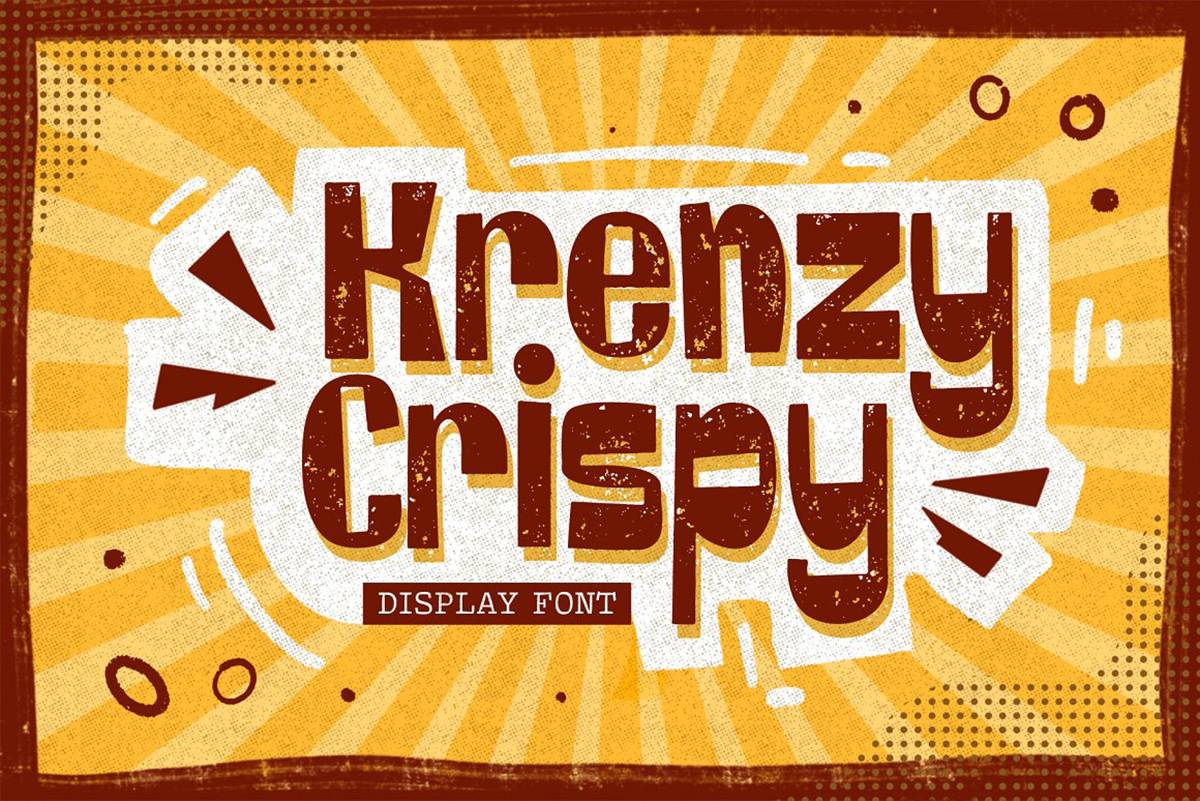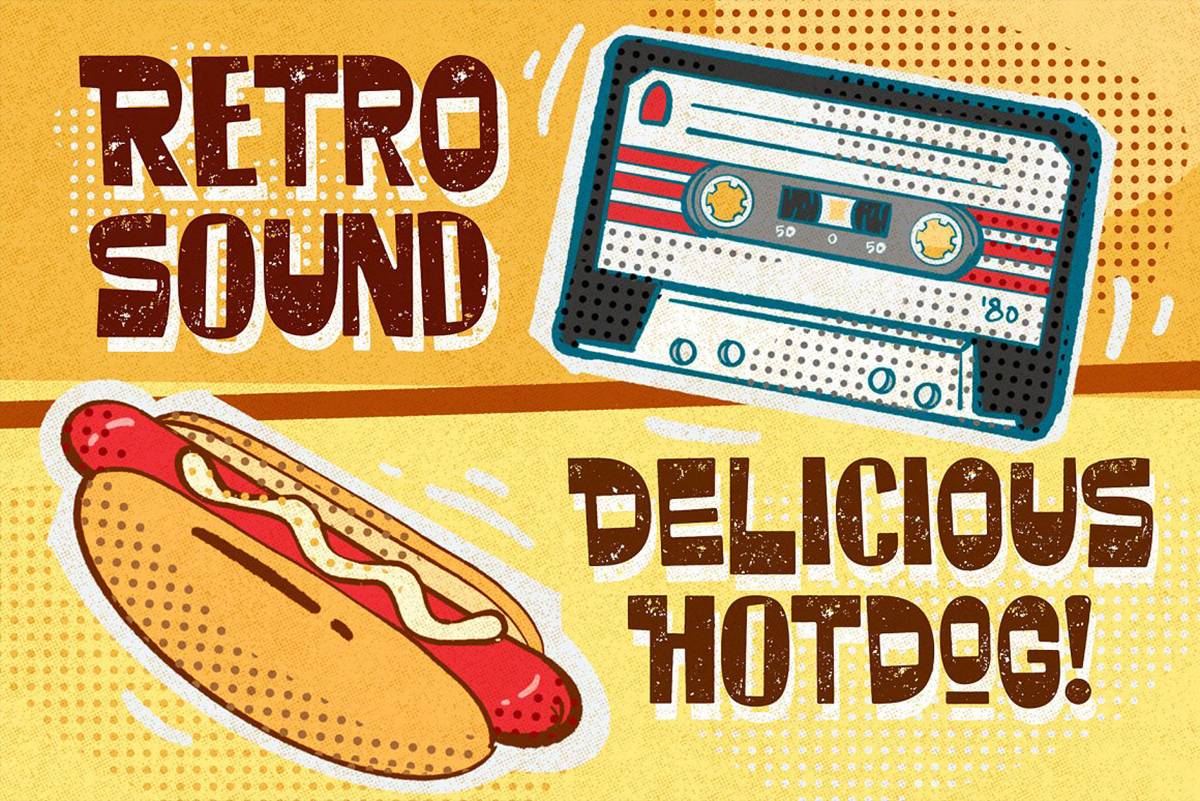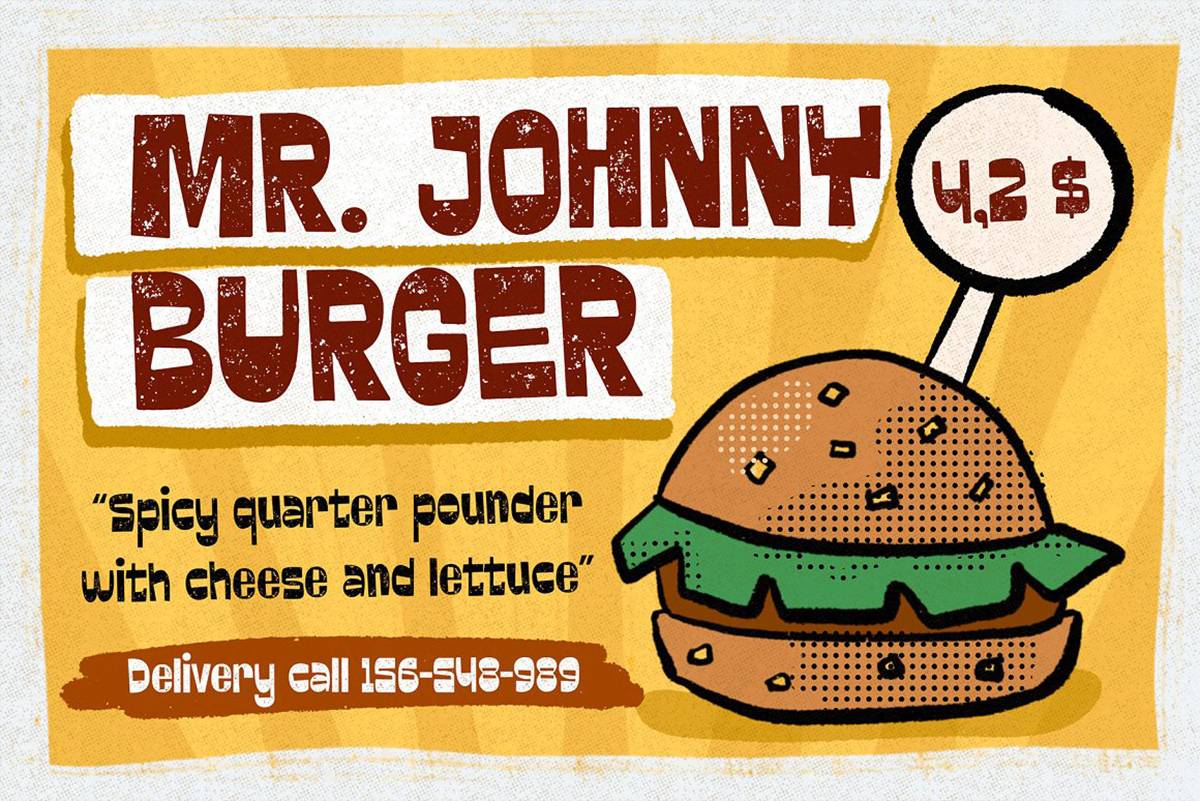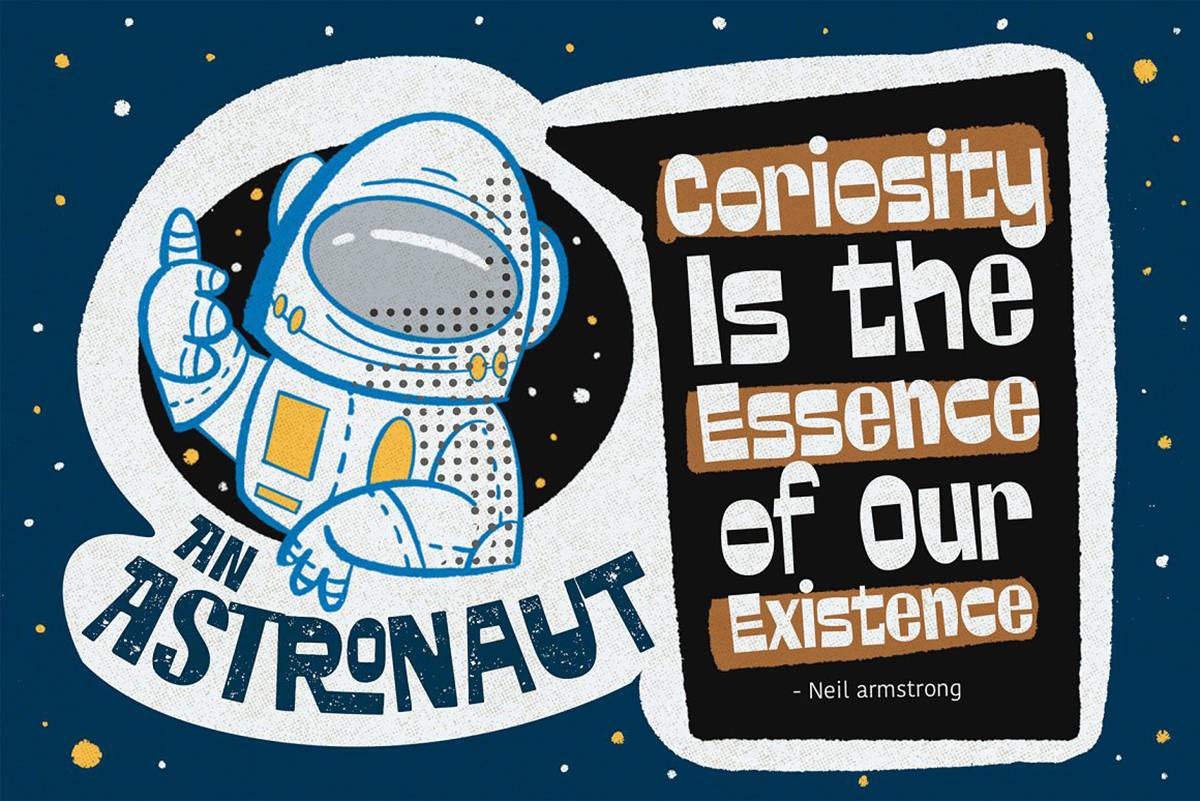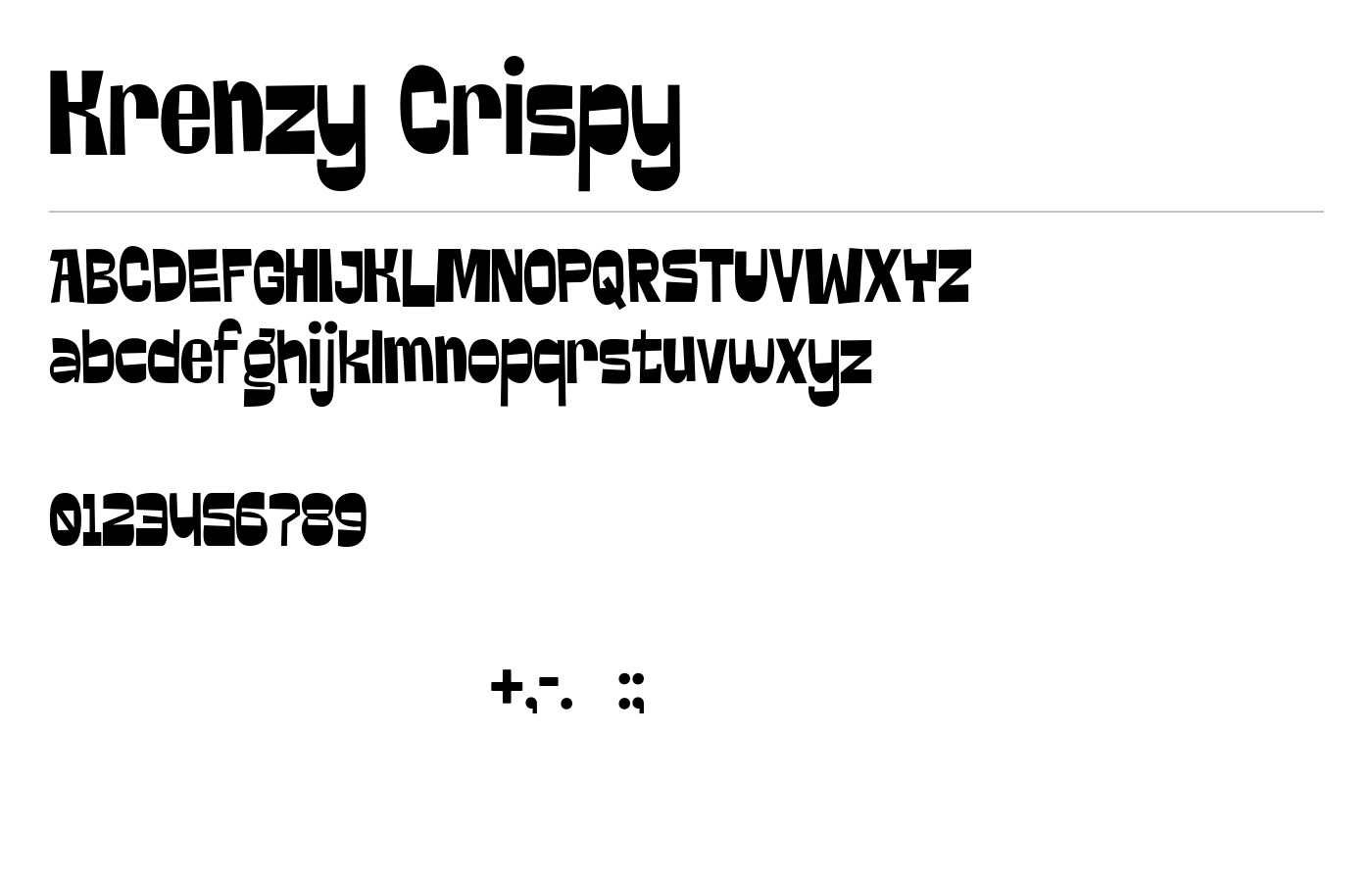
Krenzy Crispy is a bold, quirky sans-serif font with a playful, slightly condensed style and uneven letterforms that give it a handcrafted, energetic feel. Its high x-height and chunky strokes make it highly legible while its unique, irregular shapes add personality, making it ideal for fun branding, headlines, and eye-catching posters. This font works well where a lively, informal vibe is needed to grab attention and convey creativity.
Krenzy Crispy Font
About Krenzy Crispy Font
| Font family | Krenzy Crispy Font |